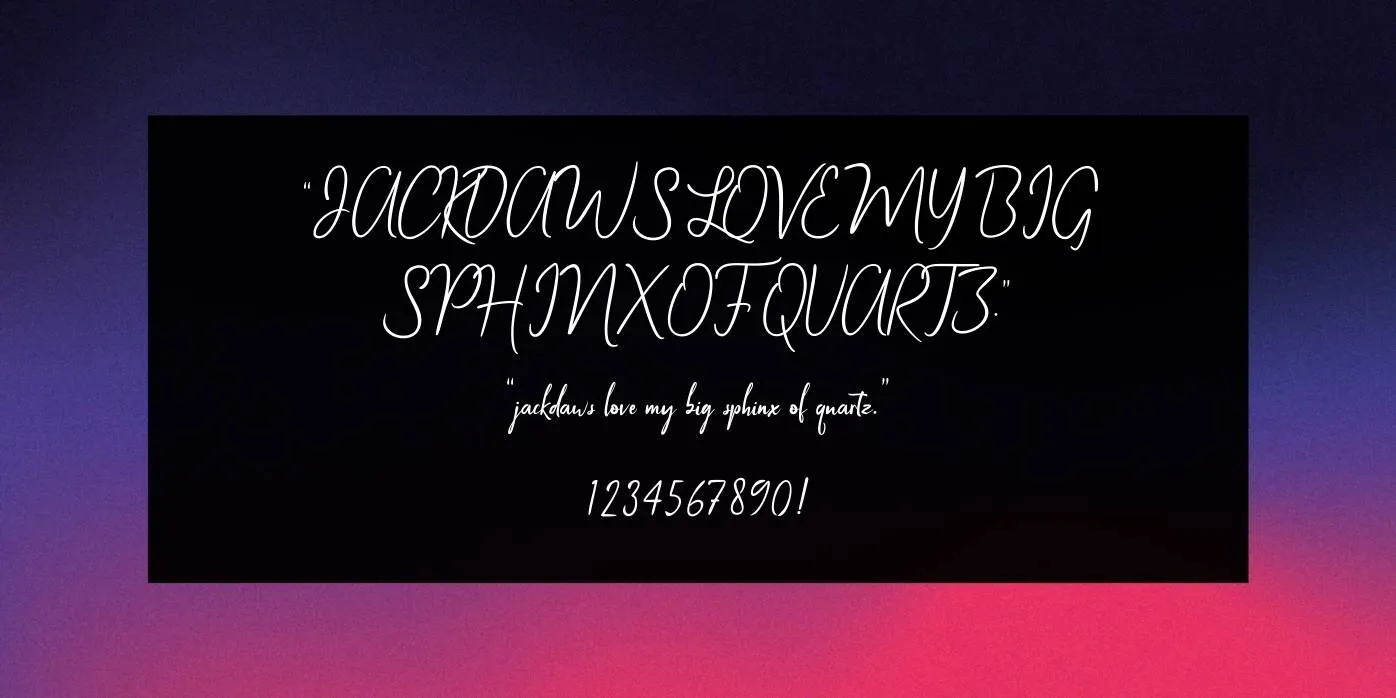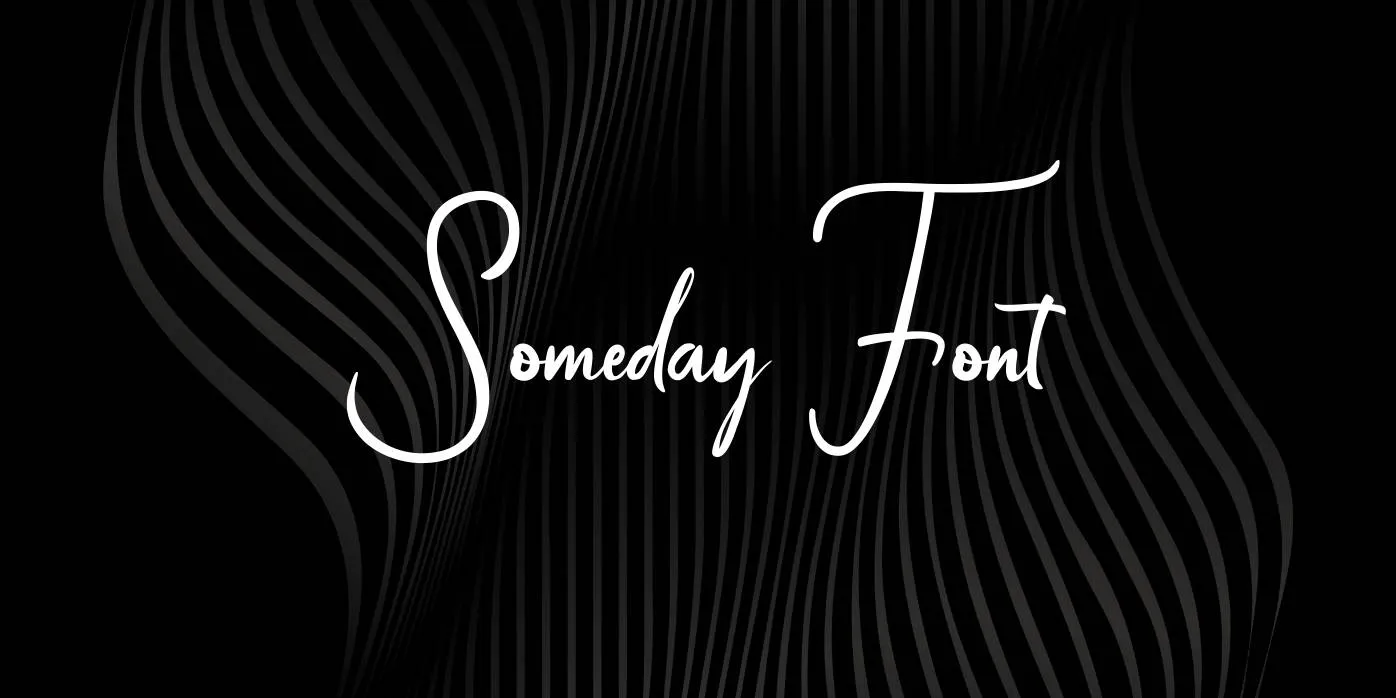
Someday Font
Let me introduce you to one of the famous and very attractive fonts named Someday Font. This font is designed by AnyTypeCo. The category of this font involves Signature, Script, and Handwriting. Someday is ideal for advertising, wedding invitations, publications, mugs, promotional items, quotations, posters, and many other things that you may use on your major project to make it look absolutely stunning.
Someday has a large number of glyphs. Naturally, having a large number of glyphs will allow you to select letters that suit you, with numerous variations and options for each letter, allowing you to personalize your design decisions and support additional languages. The whole collection of capitals and small letters, swash alternatives, ligatures, multilingual symbols, numerals, and punctuation are all included in the Someday Font. This font is very close to the mustang font.
Usage The design community is very familiar with this font family. This typeface was employed by many skilled designers for a variety of intriguing designs, including package design, advertisements, and banner advertisements. This font is also perfect for headlines, logos, and many other display purposes. This font is very versatile in nature.